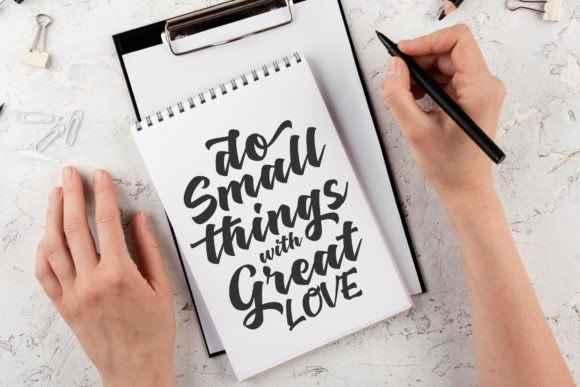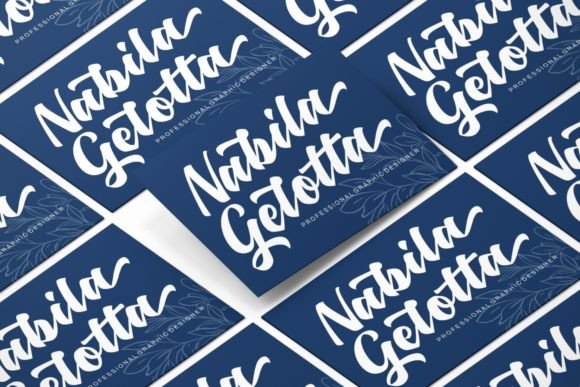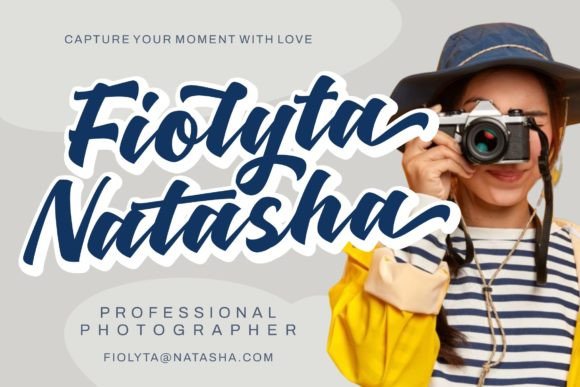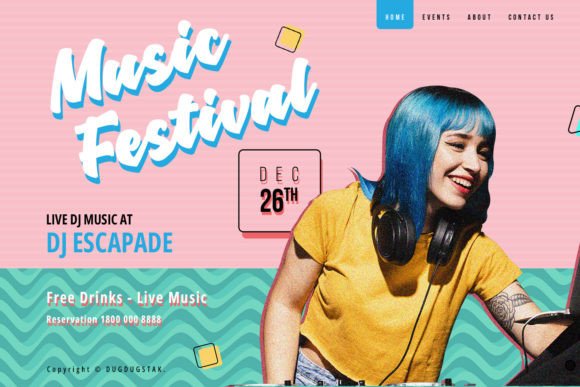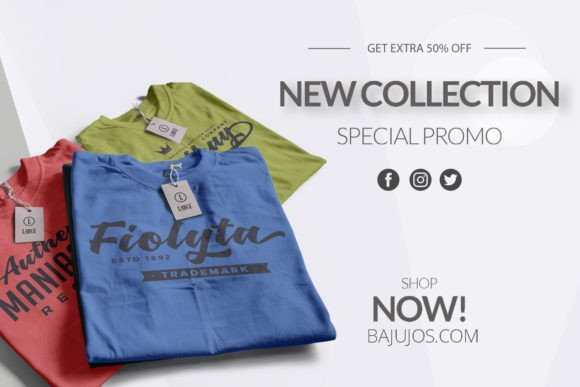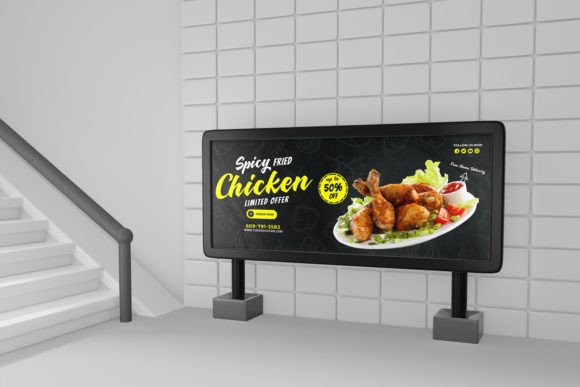
Discover the Elegance of Fiolyta Font: A Modern Script Typeface for Creative Projects
Have you ever been in the middle of a design project, and suddenly, you’re stuck on finding the perfect font? I recall a recent experience where I was working on a branding project for a luxury fashion label, and I just couldn’t find a font that screamed elegance and sophistication. That’s when I stumbled upon **Fiolyta Font**, a modern and classy script typeface that instantly elevated my design game.
What Makes Fiolyta Font Special?
Fiolyta Font is a versatile and stylish script typeface perfect for a wide range of design projects, including logos, branding, advertising, product designs, stationery, magazine designs, book/cover title designs, photography, art quotes, wedding designs, fashion designs, special events, labels, and product packaging. Its PUA (Private Use Area) encoding allows easy access to all the amazing glyphs and ligatures, making it a joy to work with.
An Honest Review of Fiolyta Font
What I Love About Fiolyta Font
- ✨ Elegant and Sophisticated: Fiolyta Font exudes luxury and refinement, making it perfect for high-end branding and design projects.
- ✅ Highly Versatile: With its wide range of glyphs and ligatures, Fiolyta Font can be used for various design applications, from logos to magazine titles.
- 💫 Easy to Use: The PUA encoding ensures that you can access all the special characters with ease, making the design process smooth and efficient.
While Fiolyta Font is an excellent choice for many design projects, there are a few minor considerations to keep in mind:
- ⚠️ Legibility at Small Sizes: Like many script fonts, Fiolyta Font may lose legibility when used at very small sizes. It’s best to use it at larger sizes or for headlines.
- 🤔 Pairing with Other Fonts: As with any script font, pairing Fiolyta Font with other fonts can be tricky. Experiment with different combinations to find the perfect match for your design.
The Backstory of Fiolyta Font
Fiolyta Font was designed by a talented typographer who aimed to create a modern and classy script typeface that would meet the needs of designers and crafters. The font’s elegant and sophisticated feel makes it perfect for a wide range of design projects. While the designer’s story is shrouded in mystery, their passion for typography and design is evident in every detail of Fiolyta Font.
| Author | agnyhasyastudio |
Q: What is PUA encoding, and how does it benefit Fiolyta Font?
A: PUA (Private Use Area) encoding allows designers to access a wide range of glyphs and ligatures, making Fiolyta Font highly versatile and easy to use.
Q: Is Fiolyta Font suitable for body text?
A: While Fiolyta Font is an excellent choice for headlines and titles, it may not be the best option for body text due to its script nature and potential legibility issues at small sizes.